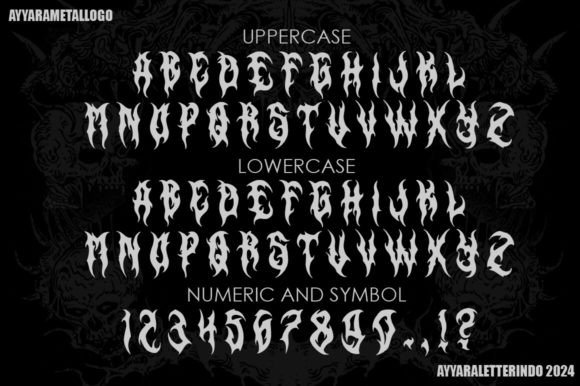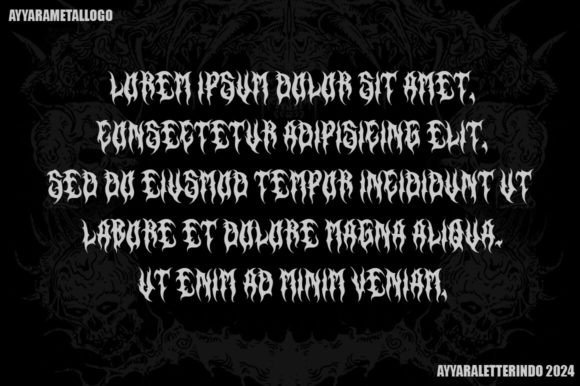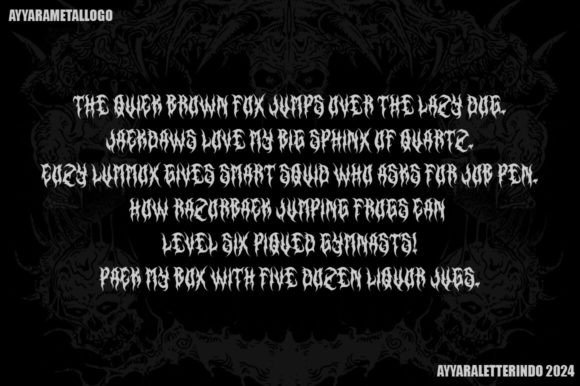
Introduction to Immolated Font
Immolated is a metal font that can be used for logos or branding and your metal band name.
You can immediately make your band or brand logo name with the help of this unique blackletter font Combine it with black metal or death metal ornaments and make your cool metal design with ease.